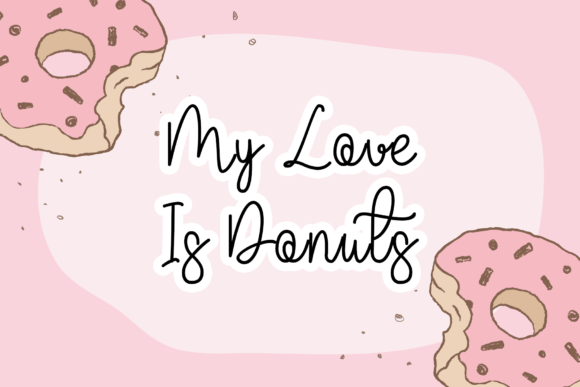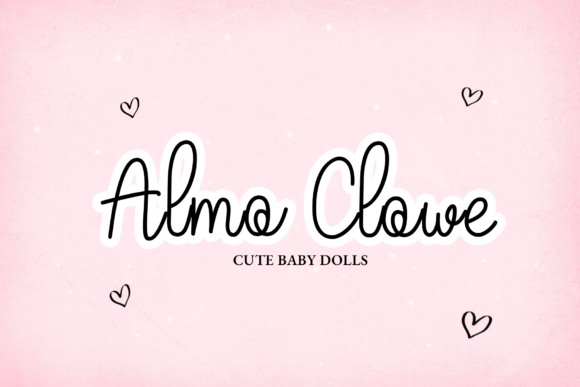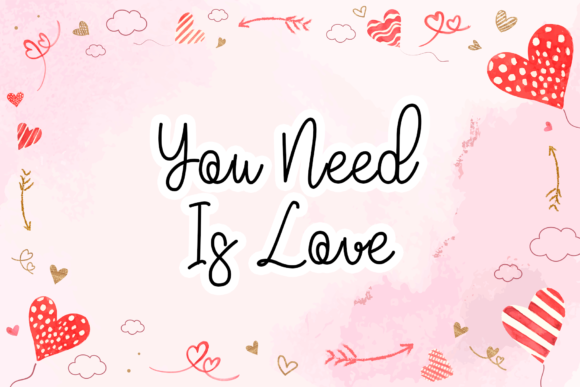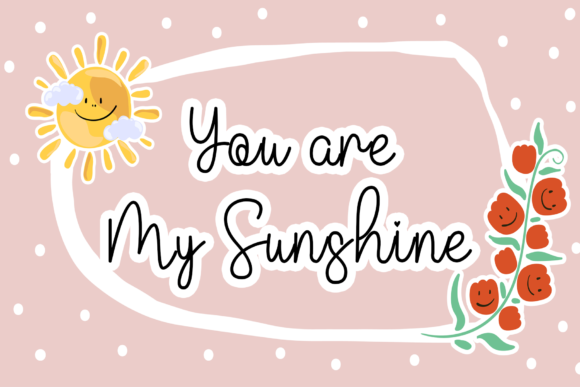
Introduction to Imanalea Font
One such font that has captured the hearts of designers everywhere is the Imanalea Font. This lovely and timeless handwritten font is a design resource like no other, offering a unique and beautiful touch to every letter that makes your design come alive. With its high quality and versatility, it’s no wonder why designers are turning to Imanalea Font for their creative projects.
Key Features of Imanalea Font
- Unique, elegant font style with a transparent background, making it perfect for modern designs
- Includes a range of font styles and weights for added versatility
- Designed with a high resolution, making it suitable for print and digital use
Honest Review: Imanalea Font
I recently stumbled upon the Imanalea Font, a free design resource that has caught my attention. This elegant script font is perfect for creative projects that require a touch of sophistication.
- High-quality design: The Imanalea Font is beautifully crafted, with smooth lines and a consistent style.
What doesn’t:
- Limited character set: The Imanalea Font has a limited character set, which may not be suitable for longer texts.
- No bold or italic options: While the font is beautiful in its standard form, it would be great to have bold or italic options for added emphasis.
Overall, I’m impressed with the Imanalea Font’s elegant design and free download option. While it has some limitations, it’s an excellent resource for designers looking for a high-quality script font for their creative projects.
When using Imanalea Font, keep in mind that it’s a high-quality font that’s perfect for creative projects. Use it to create unique headings, titles, and text overlays for your designs. Some common use cases include:
Alternatives to Imanalea Font
The Great Vibes Font is a beautiful, elegant script font perfect for creative projects that require a touch of sophistication. It features a transparent background, making it ideal for use on dark or busy backgrounds. This font is ideal for designers who want to add a high-quality, handwritten feel to their design.
When to use: Wedding invitations, event promotions, and luxury brand marketing materials.
Comparison to Imanalea Font: Great Vibes Font has a more elegant and refined feel compared to the Imanalea Font’s playful and casual vibe.
The Alex Brush Font is a highly versatile and elegant script font that is perfect for designers who want to add a touch of sophistication to their creative project. It features a high-quality design and can be used with a transparent background for a unique look. This font is ideal for designers who want to create a lasting impression.